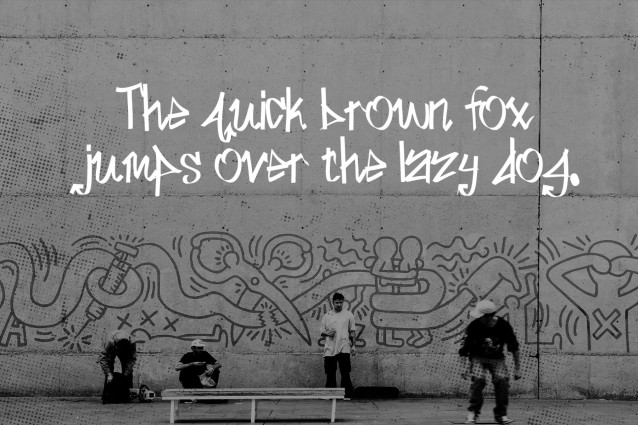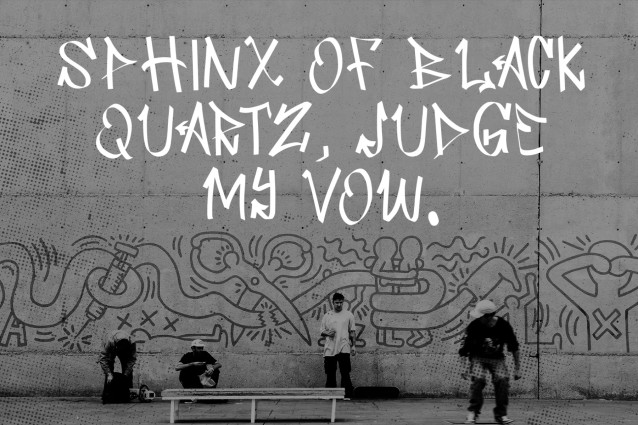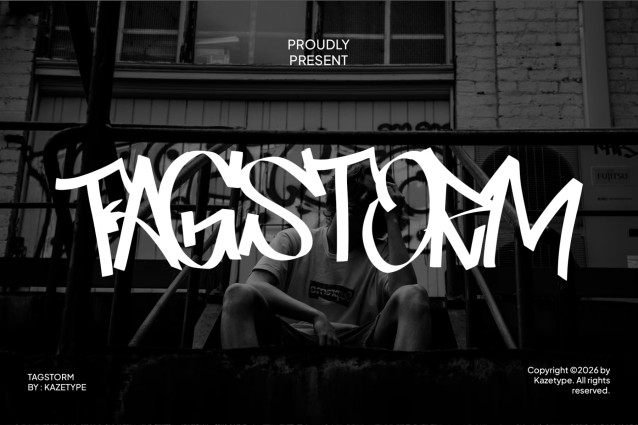
Tagstorm is a bold graffiti & street/skate tag font designed for loud, urban style lettering. With its thick, edgy shapes and spray-like feel, Tagstorm is perfect for posters, album covers, streetwear branding, stickers, and standout social media designs.